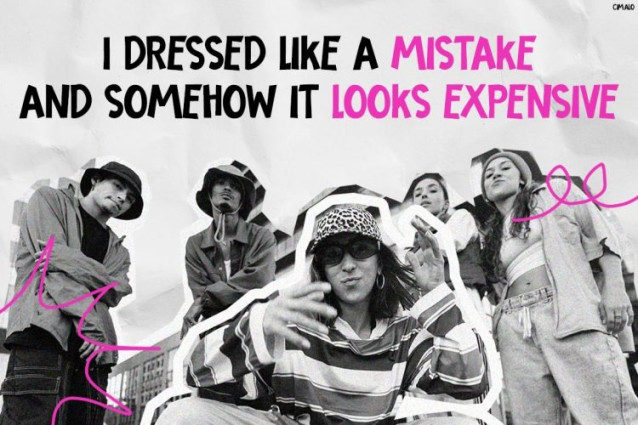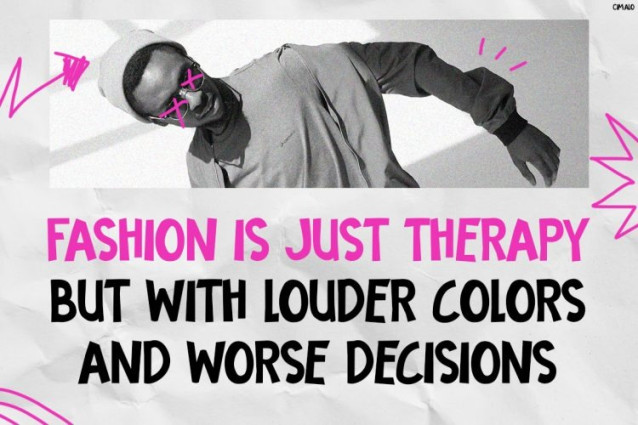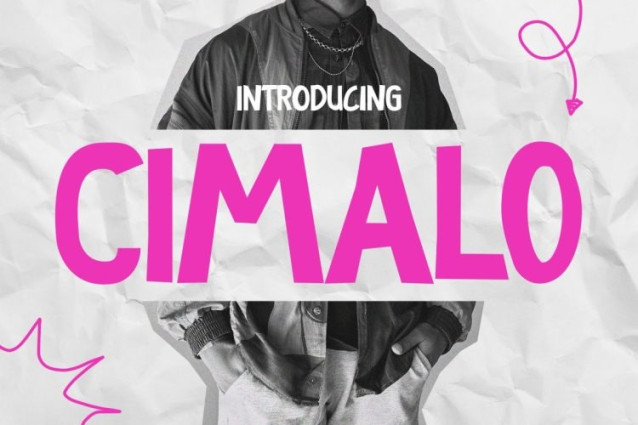
Cimalo Font is a striking, edgy typeface that blends bold street aesthetics with expressive personality. Moreover, its raw, urban-inspired shapes and high-contrast strokes instantly create a rebellious yet stylish vibe. In addition, the mix of clean uppercase, playful lowercase, and expressive punctuation makes it highly versatile for modern layouts. Not only does it feel bold, but it also communicates energy and attitude in every letter. As a result, this font stands out by capturing emotion—loud, confident, and unapologetically modern—while still remaining readable and functional across both digital and print media.
Modern Font CIMALO is perfect for creatives who want to break the rules and stand out. For instance, it works beautifully for streetwear brands, fashion campaigns, Instagram content, posters, album covers, and bold editorial designs. Furthermore, designers, content creators, and brand owners who love expressive visuals will find this font incredibly powerful and flexible. In particular, it suits projects that aim to feel youthful, energetic, and slightly rebellious. Therefore, whether you’re building a fashion-forward identity or creating scroll-stopping social media graphics, CIMALO delivers strong attitude and visual impact. Additionally, it’s a great choice for anyone looking to elevate branding with a modern, urban edge.
Ultimately, this font isn’t just a style—it’s a statement. In fact, its energetic character and modern edge help your designs speak louder and feel more alive. Moreover, it enhances visual storytelling by adding personality and emotion to every composition. So, if you want your work to grab attention instantly, stand out in crowded feeds, and leave a lasting impression, then CIMALO is the perfect choice. Don’t miss the chance to upgrade your creative projects with this bold and expressive font.